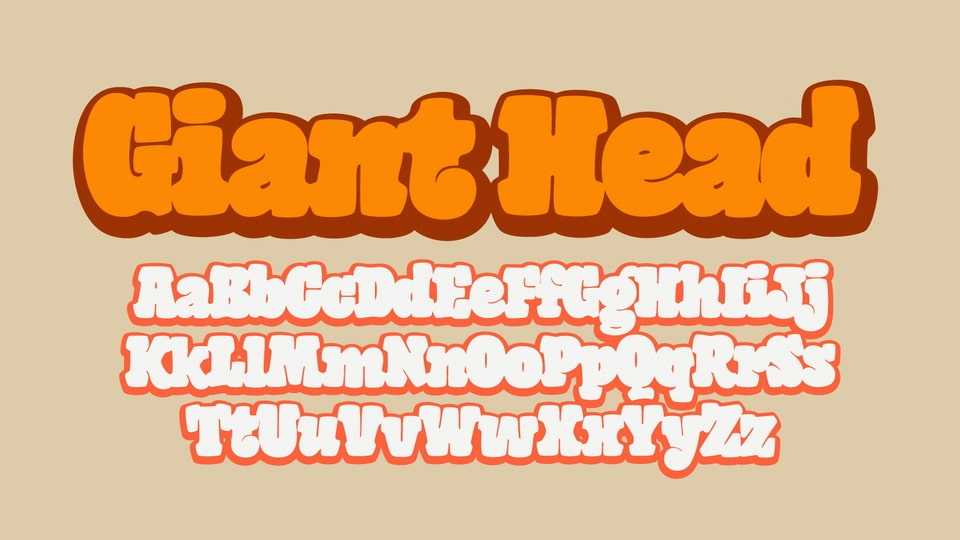
Download Giant Head font, a bold slab serif typeface was hand-drawn to an extreme weight. There are two fonts, Giant Head & Giant Head Two.
Designer: Jess Latham